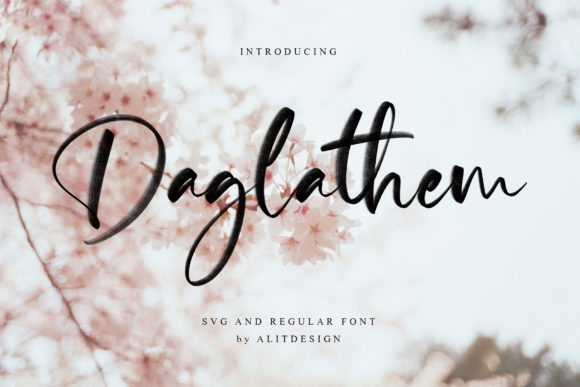
In a world where words dance and emotions flow, meet Daglathem, the captivating script font that will ignite your creative soul.
With its elegant brushstrokes, delicate curves, and timeless charm, Daglathem invites you on a journey through the art of written expression. Crafted with love by the skilled hands at Alit Design, Daglathem is more than just a font; it's a symphony of strokes that harmonizes perfectly to create a visual masterpiece.
Daglathem isn't just another font; it's an experience. It's a chance to add a touch of magic to your digital creations, to turn ordinary text into extraordinary works of art. Whether you're a seasoned designer or just starting your creative journey, Daglathem will elevate your work to new heights.
Imagine your words taking on a life of their own, flowing seamlessly across the screen, capturing the attention of your audience. Daglathem's enchanting strokes will transform your designs, adding a touch of sophistication and class that will leave a lasting impression.
So, why settle for ordinary fonts when you can embrace the magic of Daglathem? Let its delicate curves and graceful lines ignite your imagination and take your creations to new levels of beauty. Let Daglathem be your muse, the guiding force that elevates your designs and makes your words shine.